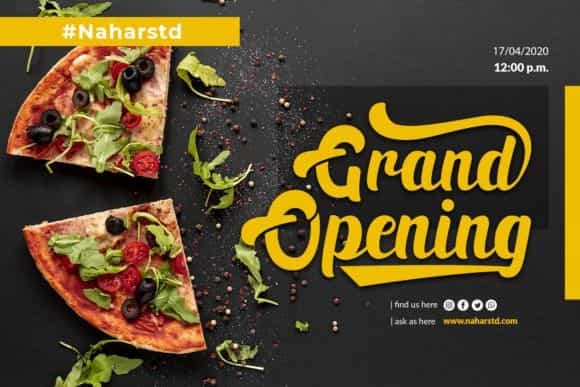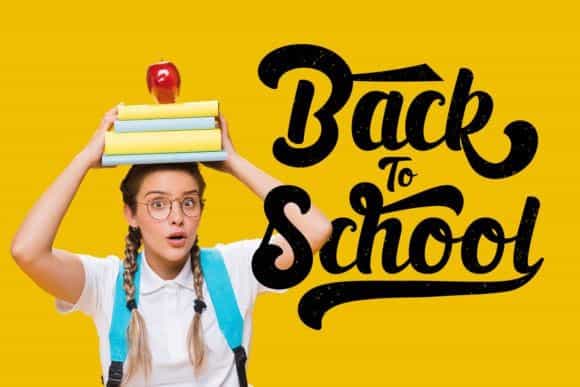
Black Ryder is a well-groomed script font, an elegant typeface with a human touch. Black Ryder is an ideal option for branding projects, homeware designs, product packaging – or just as a stylish text overlay to any background image.